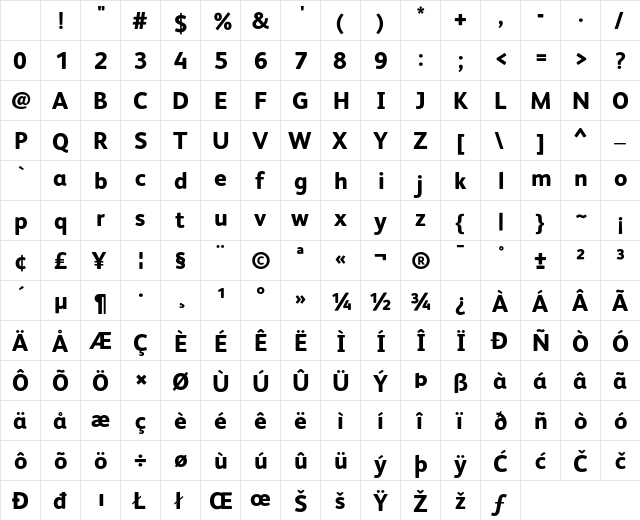
Complete FSAlbert ExtraBold glyph index. Displaying only characters natively supported by FSAlbert ExtraBold font.
FSAlbert is a composed and adaptable typeface that performs quietly and consistently across a wide range of design contexts. Its bold stroke weight gives it real presence on the page.